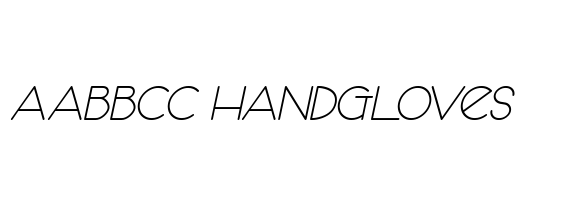
Merlina
by Prasetype
The Merlina Font Family was designed by Anggun Bangkit Hutami and published by Prasetype. Merlina contains 2 styles and family package options. More about this family
Merlina is an elegant, thin lettered sans serif font. This font is PUA encoded which means you can access all of the glyphs and swashes with ease!
Designers: Anggun Bangkit Hutami
Foundry: Prasetype